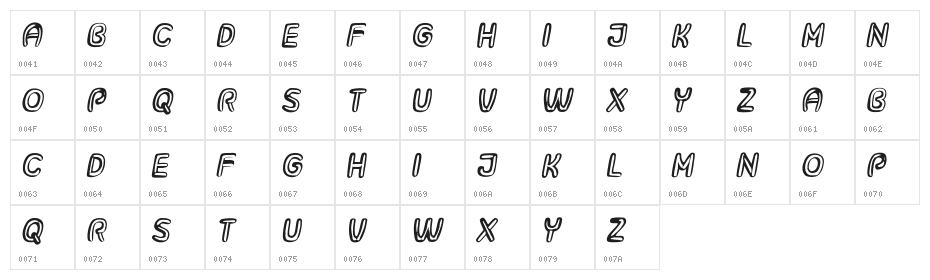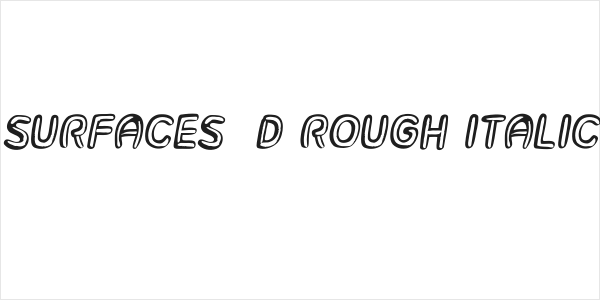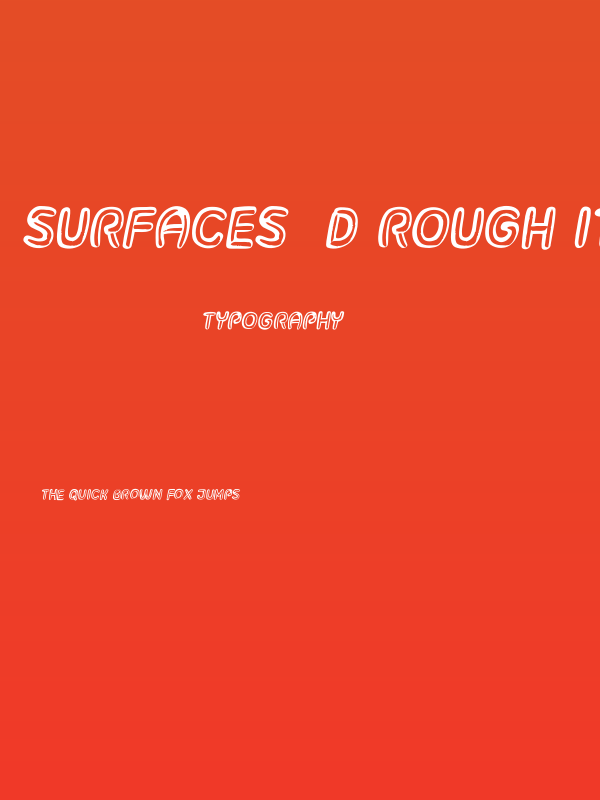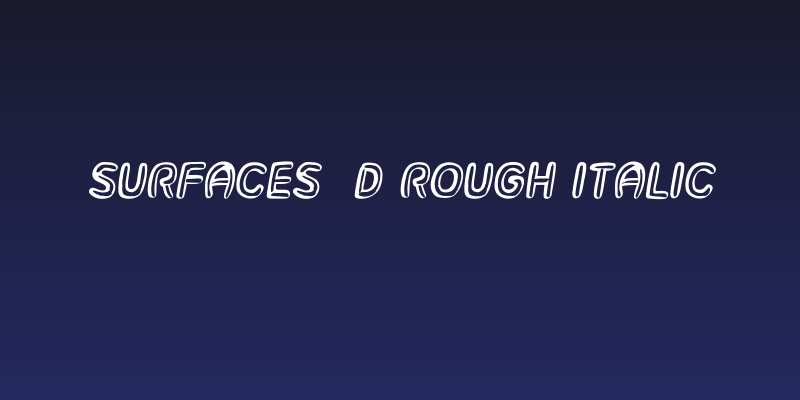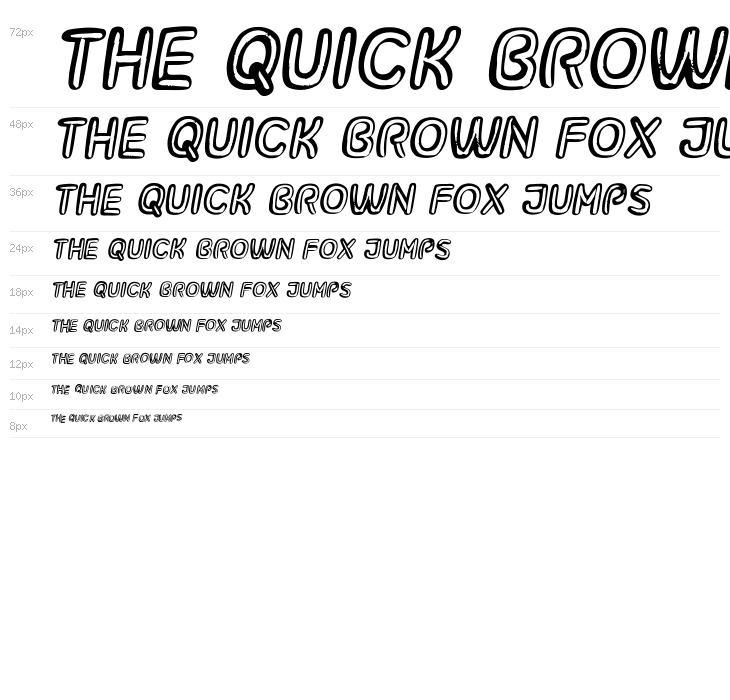
Surfaces 3D Rough Italic Font
Surfaces 3D Rough Italic Description
This font features a bold, three-dimensional appearance with a rough, hand-drawn style. The letters are outlined with a thick black stroke, giving them a shadowed effect that enhances the 3D illusion. The italic slant adds a dynamic and energetic feel, making it stand out in any design. Each character is uniquely crafted with slight irregularities, contributing to its rough and playful aesthetic. The font maintains a consistent weight throughout, ensuring readability while still offering a decorative flair. Its distinctive style is perfect for projects that require a bold and eye-catching typeface.
| Proposed Projects | Ideal for posters, logos, headlines, and any design needing a bold, playful touch. |